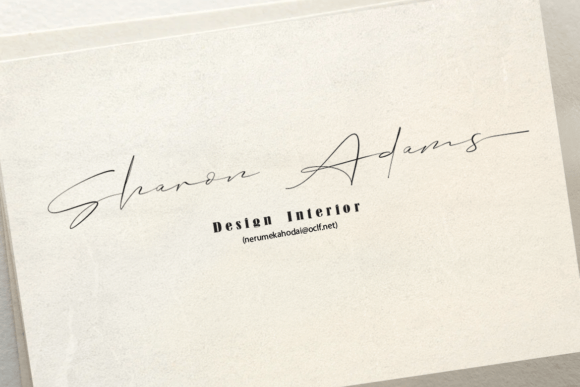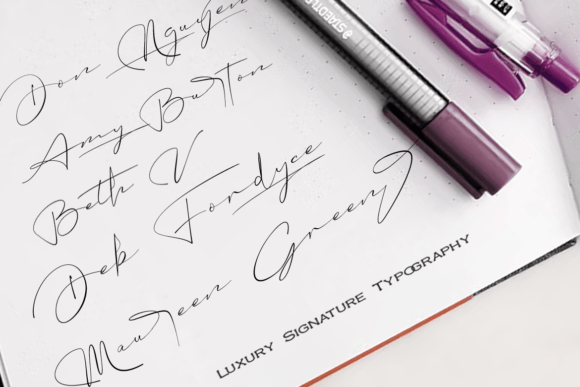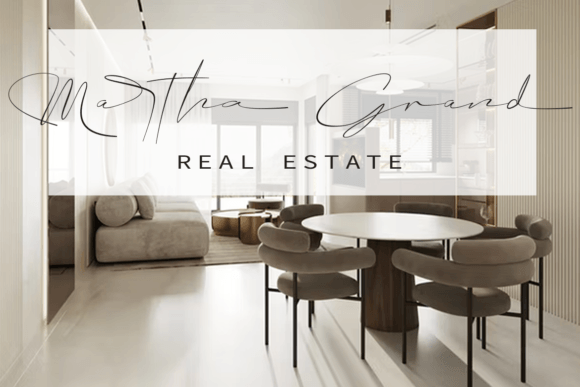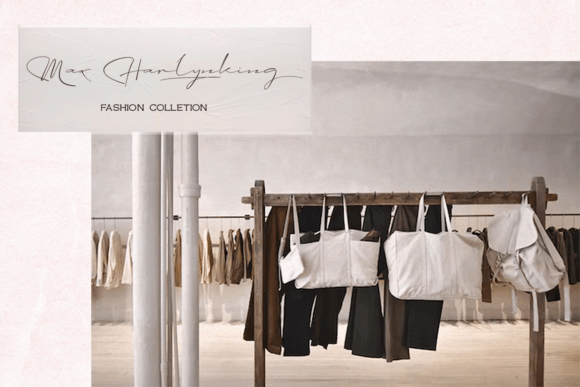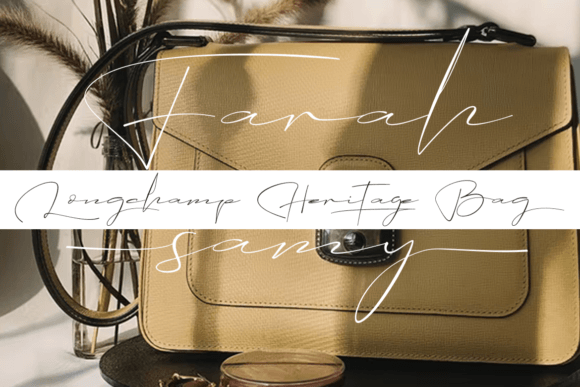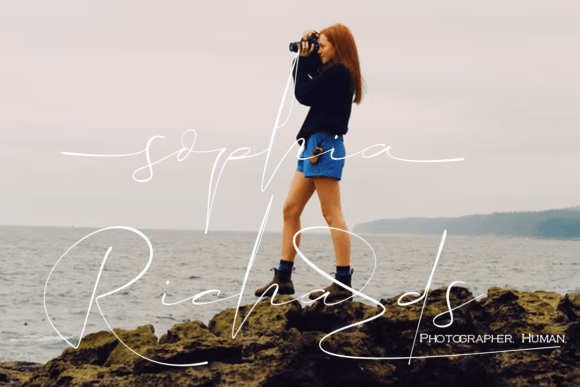
Introduction to Sharon Font
As designers, we’ve all been there – staring at a blank canvas, struggling to find the perfect font to bring our creative project to life. But what if I told you that the search is over? Introducing the Sharon Font, a beautiful and luxurious signature script font that will elevate your designs to new heights.
With its subtle style and high-quality design, the Sharon Font is the perfect addition to any design resource. Whether you’re working on a branding project, creating stunning photography, or crafting invitations that will leave a lasting impression, this font is sure to add a touch of class. And the best part? It’s PUA-encoded, making it easy to access all the glyphs and sweeps you need to create stunning designs with transparent backgrounds.
Key Features of Sharon Font
- High-quality, elegant design suitable for various creative projects, including wedding invitations, greeting cards, and other special occasions.
- Features a unique, cursive script design that adds a touch of sophistication and elegance to any project.
Honest Review: Sharon Font
As a designer, I’m always on the lookout for high-quality fonts to enhance my creative projects. The Sharon Font is one of the latest additions to my design resource library, and I’m excited to share my honest review.
- ✨ Unique and elegant design: The Sharon Font has a beautiful, classic look that’s perfect for a variety of projects, from wedding invitations to luxury branding.
- ✨ High-quality glyphs: The font includes a wide range of characters, including numbers, punctuation, and special characters, making it a great choice for complex designs.
- ⚠️ Limited font sizes: While the font is beautiful, it’s not available in as many sizes as I’d like, which can be a limitation for larger-scale designs.
- ⚠️ No transparent background option: The font doesn’t have a transparent background option, which can make it difficult to use in certain design situations.
Overall, I’m impressed with the Sharon Font. While it’s not perfect, its unique design, high-quality glyphs, and free download make it a valuable addition to any designer’s library. With a few tweaks to address the limitations, I have no doubt it will become a go-to font for many designers.